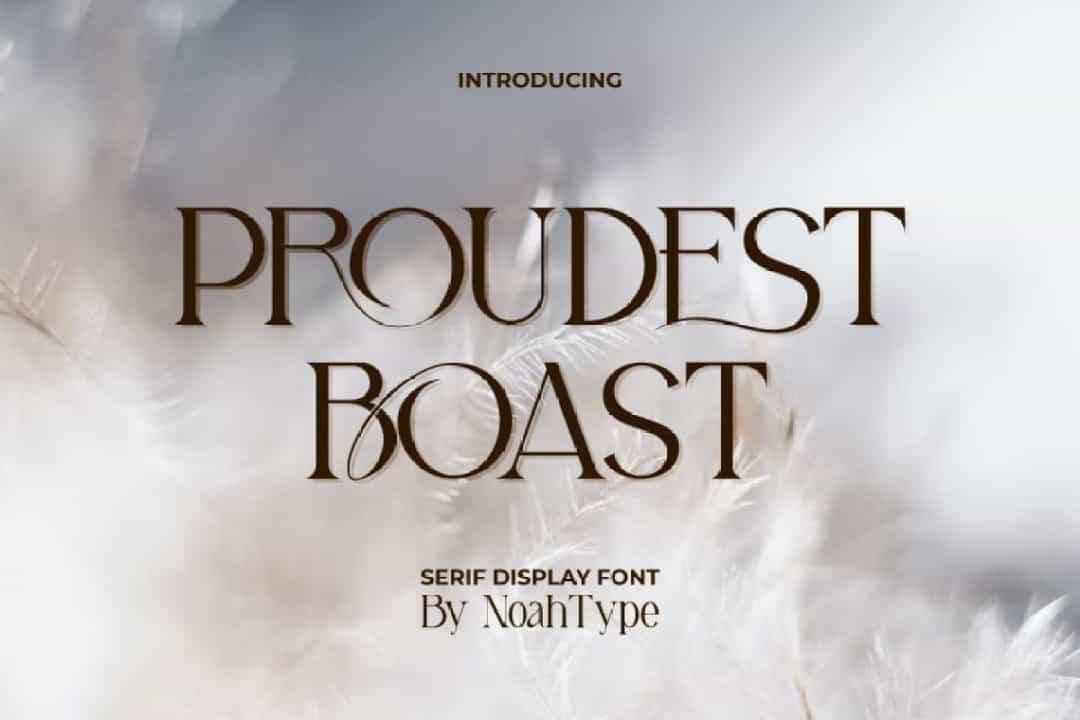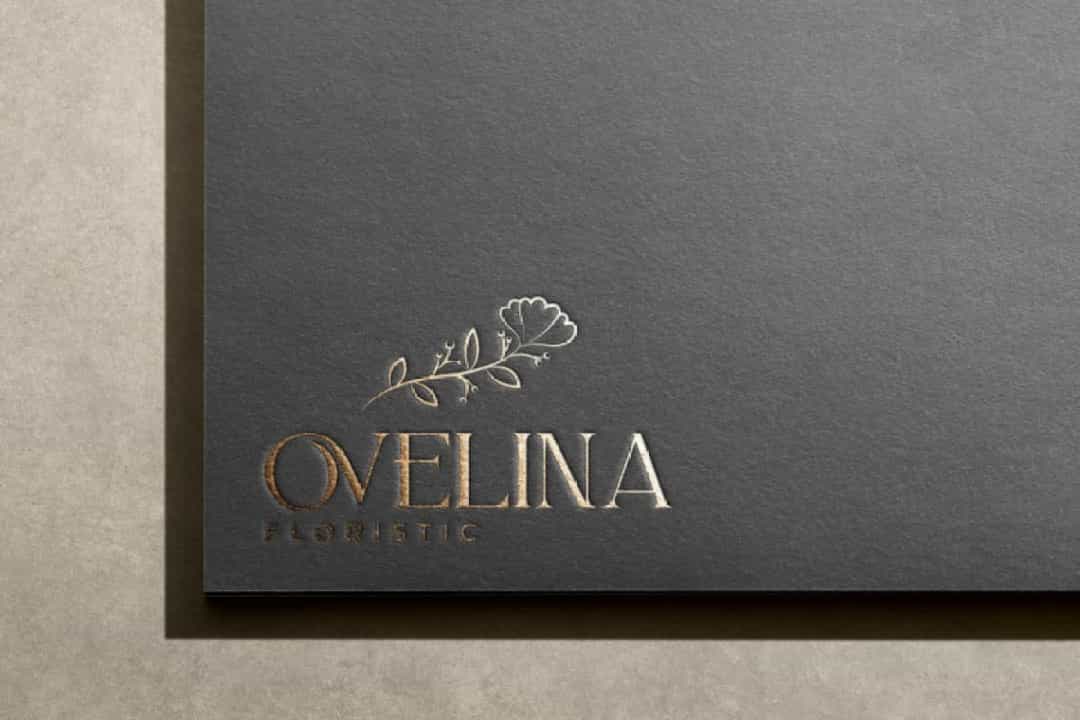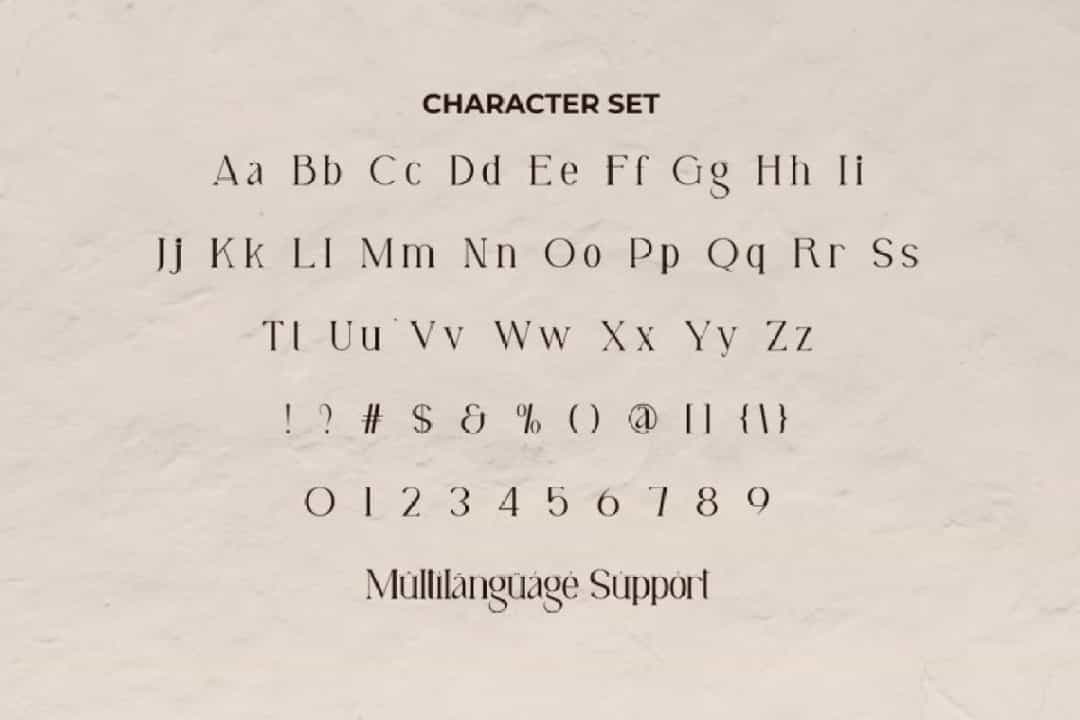
Proudest Boast is an elegant serif display font. Featuring strong thin lines that do not detract from its design, Proudest Boast works beautifully when combined with other fonts to add a sophisticated feel to any design project. Perfect for businesses needing to project an image of class like fashion boutiques, cosmetic and homeware stores, florists jewelry merchants publishing houses wedding or event planners and much more – give Proudest Boast a try now!